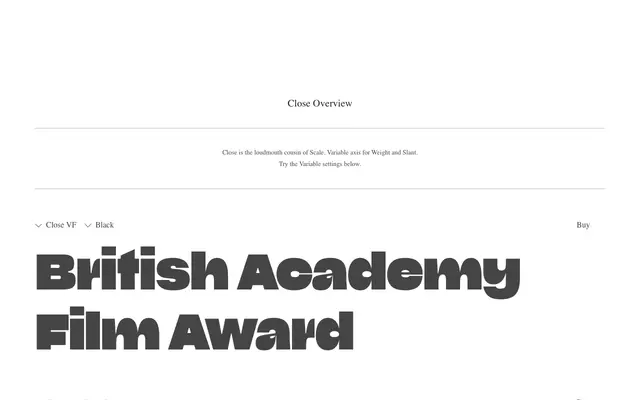
A variable grotesque sans from PS Type Lab positioned as the expressive sibling of their Scale typeface, with axes for weight and slant.
Close runs a variable weight axis from ExtraLight to Black and a slant axis for oblique variants, giving it considerable range across six named weights and their slanted counterparts. Alternate OpenType features include a spurless G, double-storey g, spur a, schoolbook a, crossbar I and diagonal forms for K, k, t and y, allowing some control over character personality. Its self-described 'loudmouth' character positions it toward display and headline use rather than text setting.
Described as the 'loudmouth cousin' of Scale, Close is a display-leaning grotesque sans with a variable weight axis and slant axis, suggesting a genre-aware grotesque with expressive range.